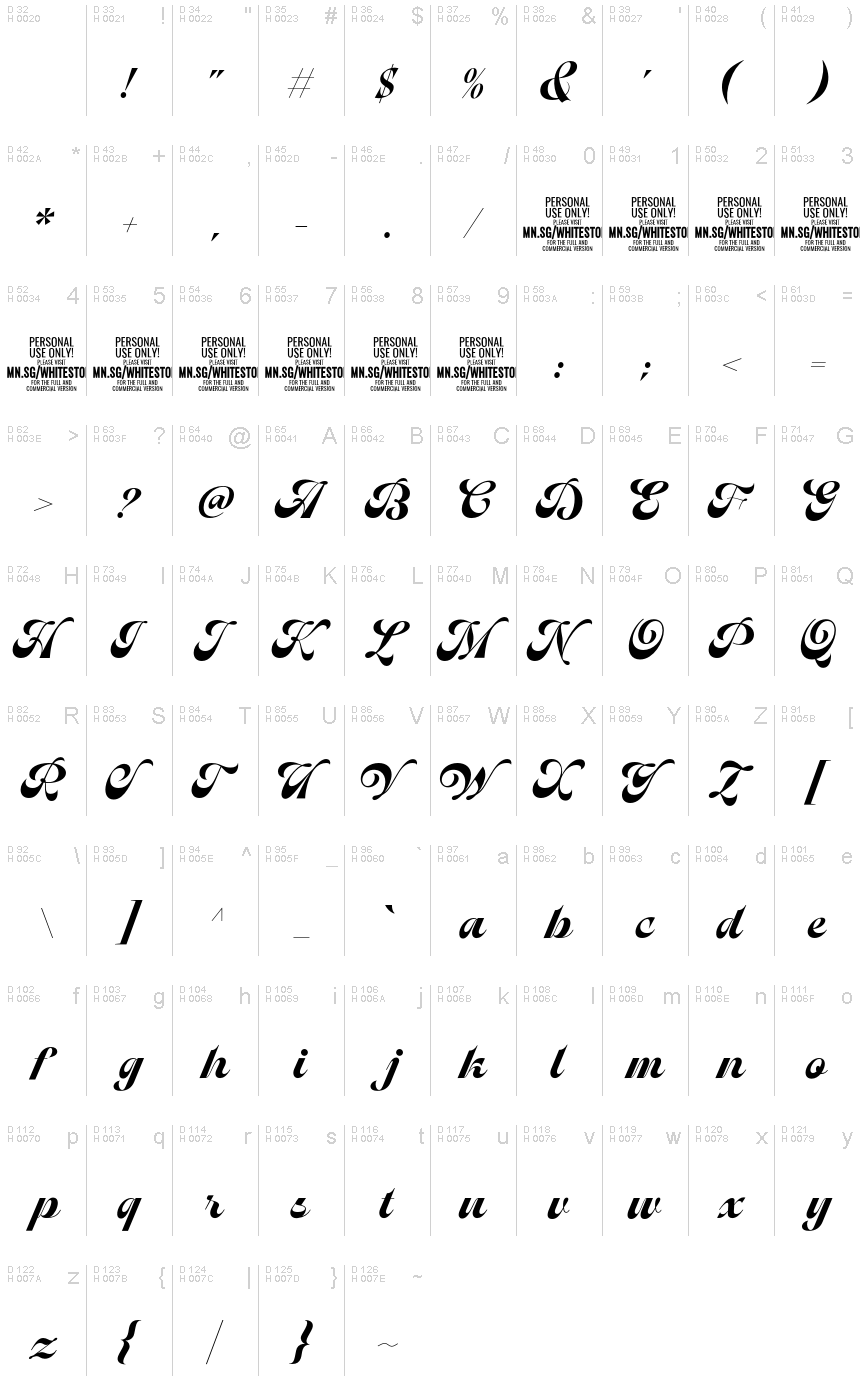
Whitestone Formal PERSONAL Regular
Whitestone Formal, designed by Mans Greback, is a script font that exudes vintage elegance. Its weighty, calligraphic characters create a sense of depth and solidity, captivating the eye with a classy, timeless aesthetic. The font's strong strokes and fluid movements evoke a sense of sophistication and refinement, making it a standout choice for projects seeking a touch of vintage charm.
Whitestone Formal's versatility shines through, as its distinctive features lend themselves well to a variety of applications. From formal wedding invitations and high-end product branding to elegant editorial layouts and luxurious packaging design, this font's vintage-inspired charm can elevate the visual identity of diverse projects, infusing them with a refined, timeless appeal.